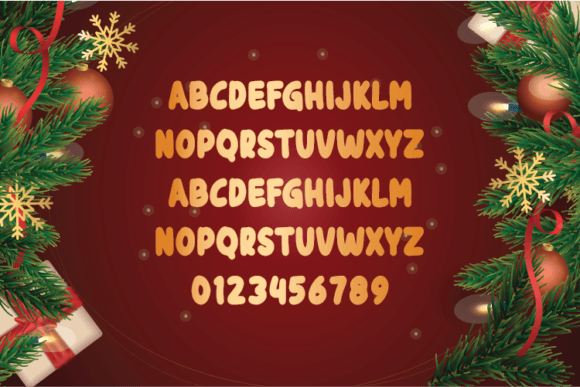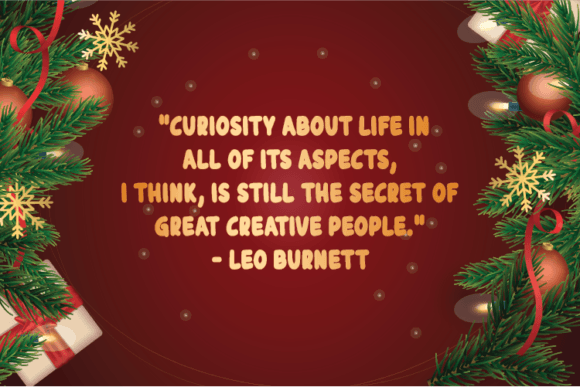
Bubbly Christmas Font: Add a Touch of Whimsy to Your Designs
Are you looking for a unique and eye-catching font to add some festive flair to your designs? Look no further than the Bubbly Christmas font! This natural display font is made without changing a single node in each character’s indentation, making it a truly one-of-a-kind addition to your typography collection.
What Makes Bubbly Christmas Font So Special?
The Bubbly Christmas font is a game-changer for designers and crafters who want to add a touch of whimsy to their work. Its unique, unaltered node structure gives it a fresh and organic feel that’s perfect for a wide range of design applications. Whether you’re creating quotes, notes, tees, or product designs, this font is sure to make your work stand out.
Key Features of Bubbly Christmas Font
- Natural Display Font: The Bubbly Christmas font has a natural, effortless look that’s perfect for display text.
- Unique Node Structure: The font’s unaltered node structure gives it a distinctive, handmade feel.
- Versatile: Use it for quotes, notes, tees, product designs, and more!
- Easy to Read: Despite its unique structure, the font is still easy to read and understand.
The Bubbly Christmas font is a dream come true for designers and crafters who want to add a personal touch to their work. Whether you’re creating:
- Quotes and Posters: Add a festive touch to your inspirational quotes and posters.
- T-Shirts and Apparel: Create eye-catching tees and apparel with this unique font.
- Product Designs: Use it for packaging, labels, and other product designs.
- Notes and Stationery: Add a touch of whimsy to your notes and stationery.
Tips for Using Bubbly Christmas Font
To get the most out of the Bubbly Christmas font, try these tips:
- Experiment with Colors: Try pairing the font with bright, bold colors to really make it pop.
- Mix and Match: Combine the Bubbly Christmas font with other fonts for a unique, layered look.
- Play with Size: Experiment with different font sizes to create visual interest.
The Bubbly Christmas font is a unique and versatile addition to any designer’s toolkit. Its natural, effortless look and distinctive node structure make it perfect for a wide range of design applications. Whether you’re a designer, crafter, or simply someone who loves to create, this font is sure to bring a touch of whimsy and festivity to your work. So why wait? Download the Bubbly Christmas font today and start creating!